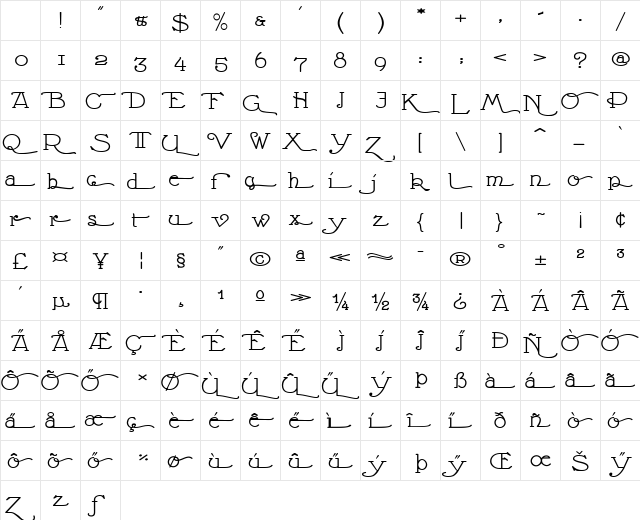
Complete Nathan Alternates Expanded Regular glyph index. Displaying only characters natively supported by Nathan Alternates Expanded Regular font.
Nathan Alternates Expanded is a composed and adaptable typeface that performs quietly and consistently across a wide range of design contexts.